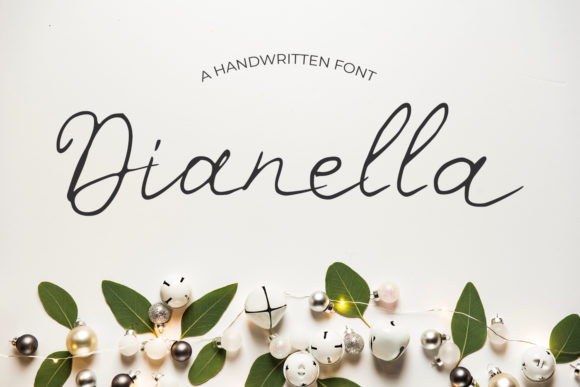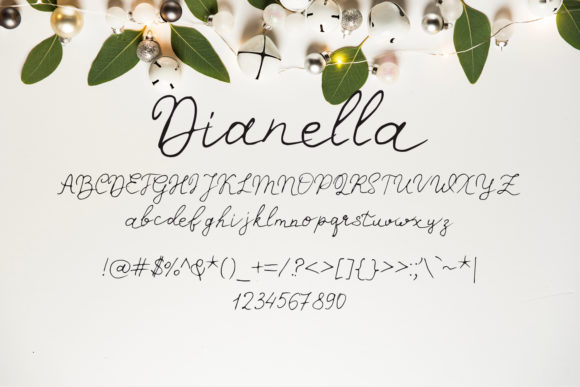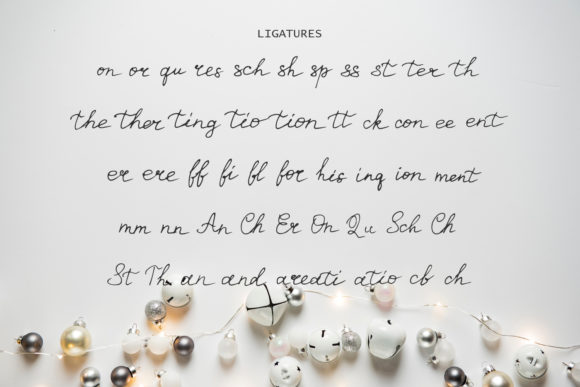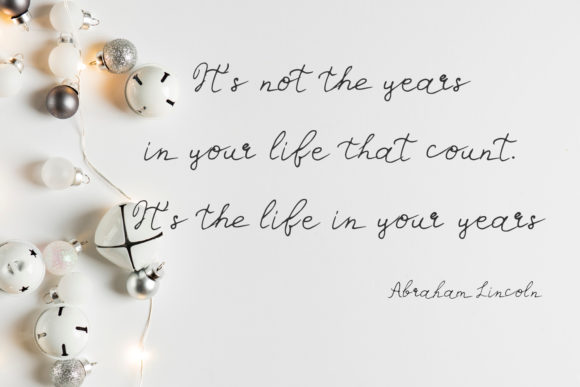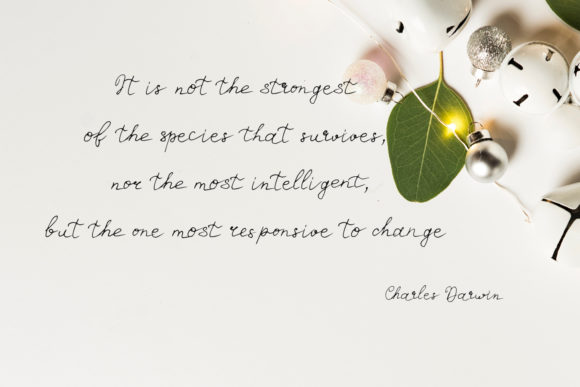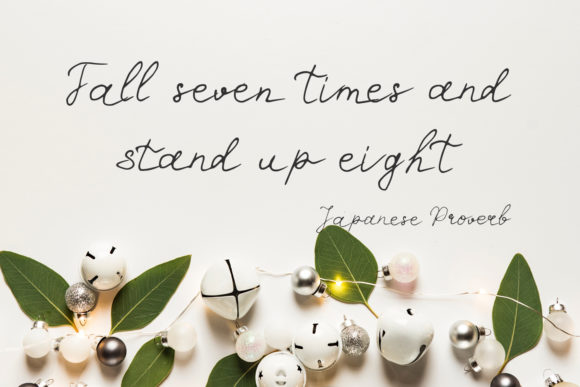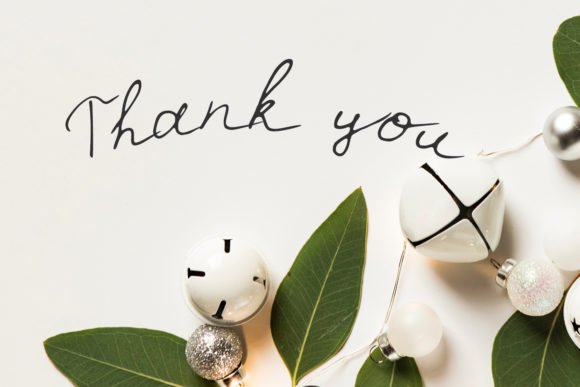
Dianella Font
About Dianella Font
Dianella is a sweet and dainty handwritten font. It looks beautiful on a variety of designs requiring a personalized style, such as wedding invitations, thank you cards, weddings, greeting cards, logos and so on.